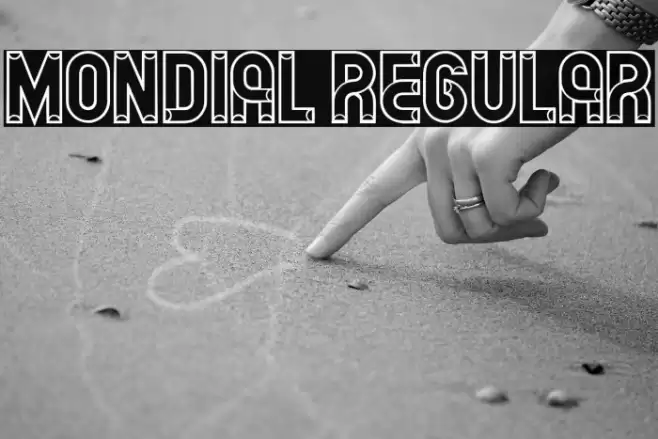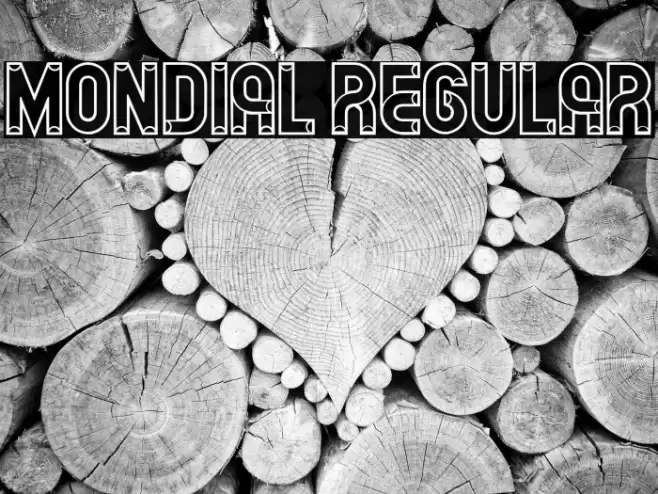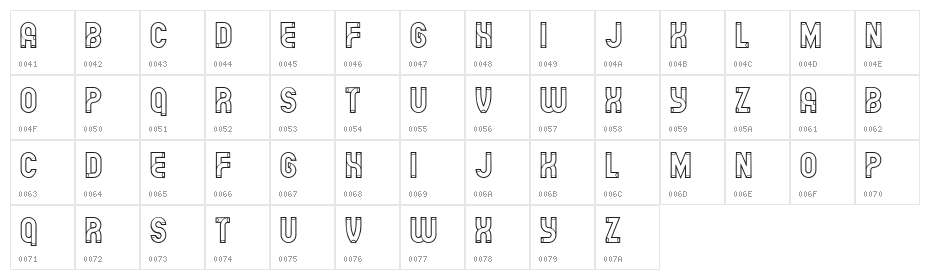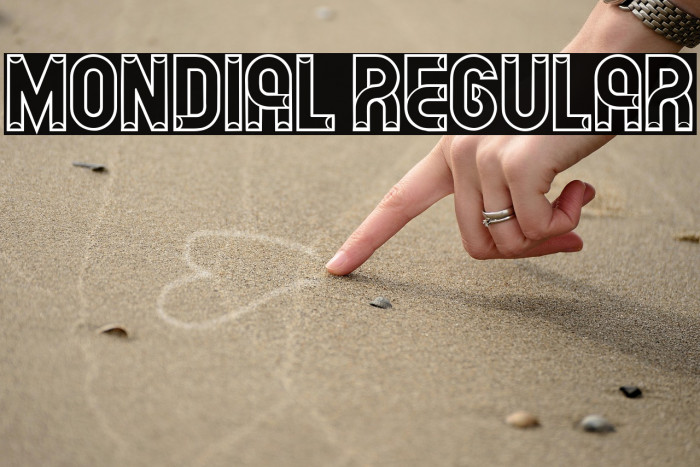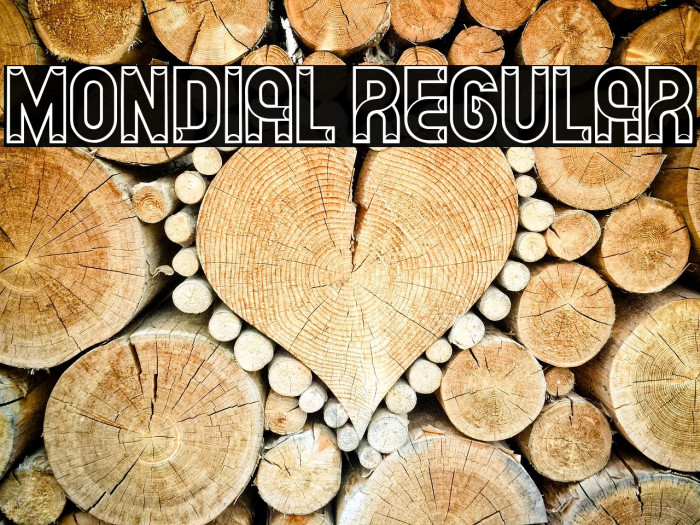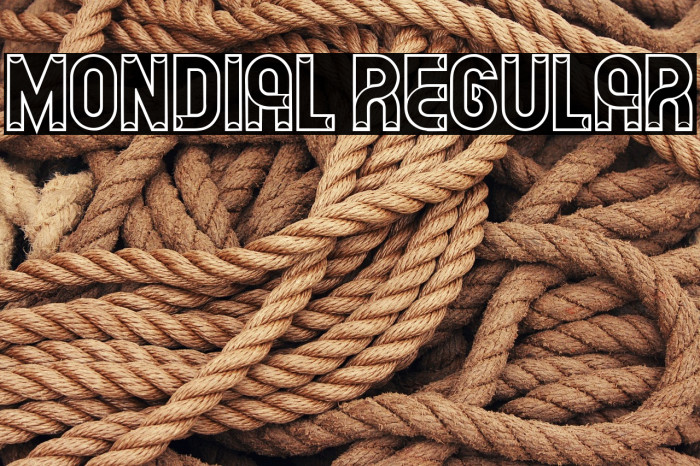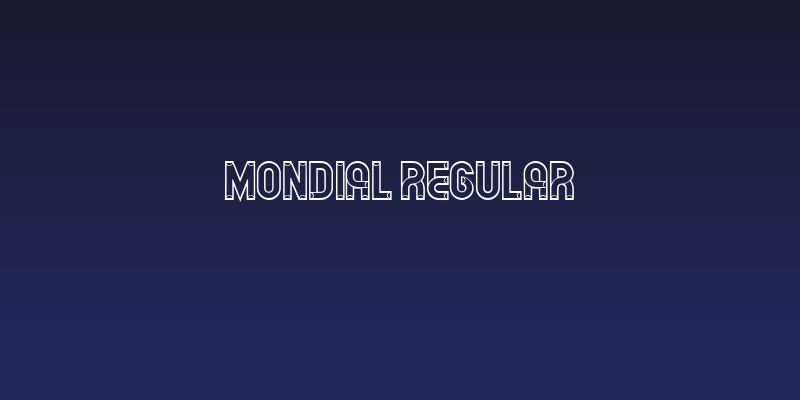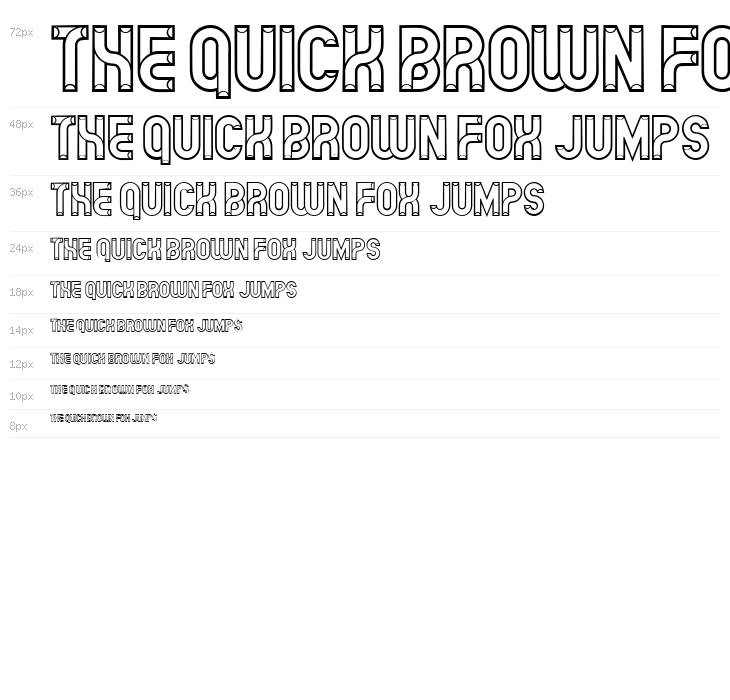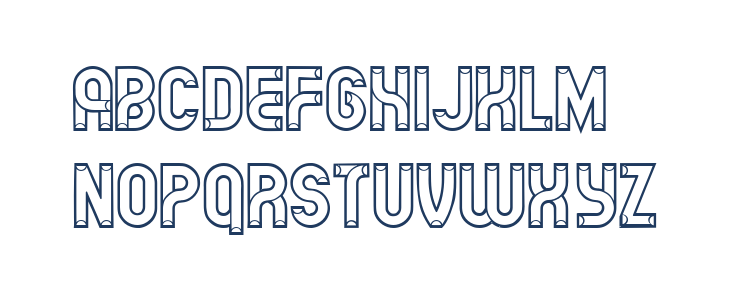
Mondial Regular Font
Mondial Regular Description
This font features a bold, geometric design with a three-dimensional effect created by the use of shadowing and outlines. The characters are uppercase, with a consistent width and height, giving a uniform appearance. The style is modern and decorative, making it suitable for eye-catching designs. The letters have a playful yet structured look, with clean lines and a sense of depth. The font is ideal for projects that require a strong visual impact, such as posters, logos, and headlines.
A bold, geometric font with a 3D effect and modern, decorative style from Uncategorized fonts.
- Proposed Projects: Ideal for posters, logos, headlines, and any design requiring a strong visual impact.